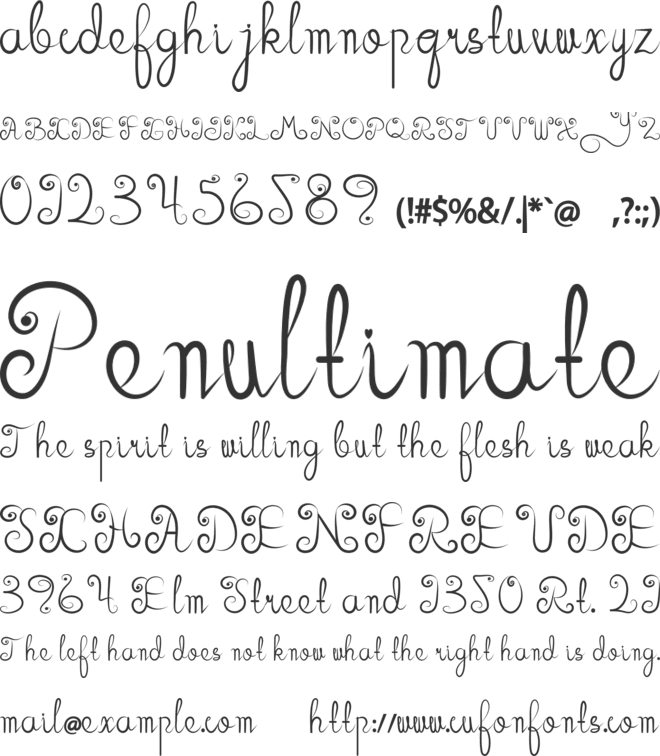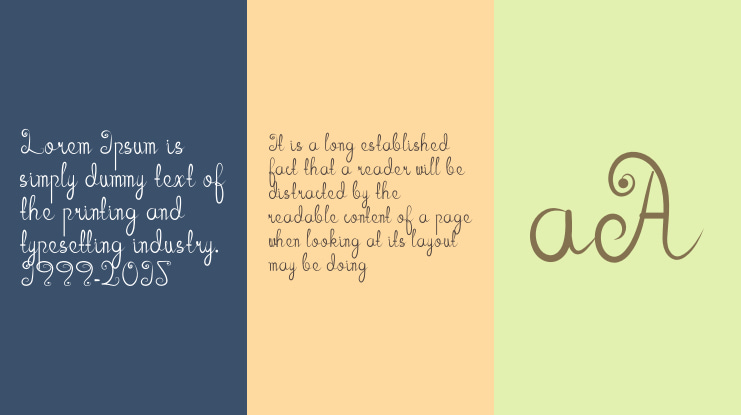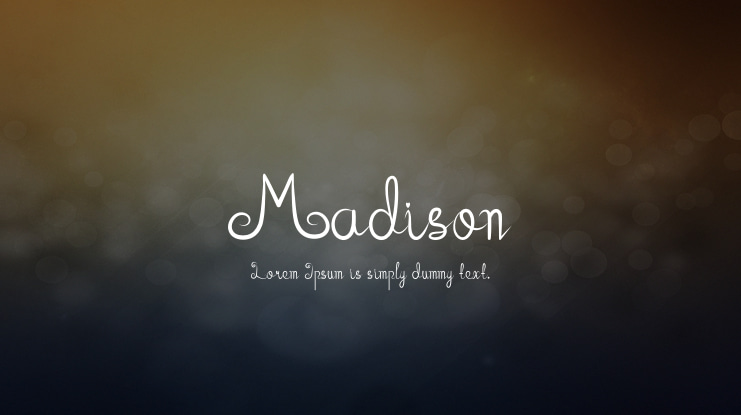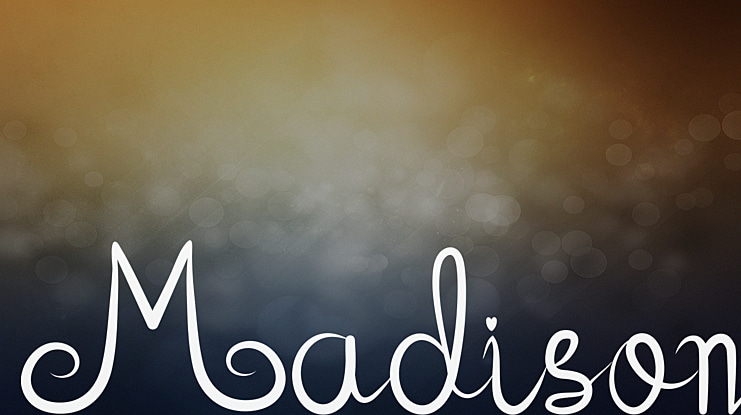
Madison Font
Maddison is a romantic and sweet calligraphy typeface with characters that dance along the baseline. It has a casual, yet elegant touch. Use this font for your designs and explore its endless possibilities.